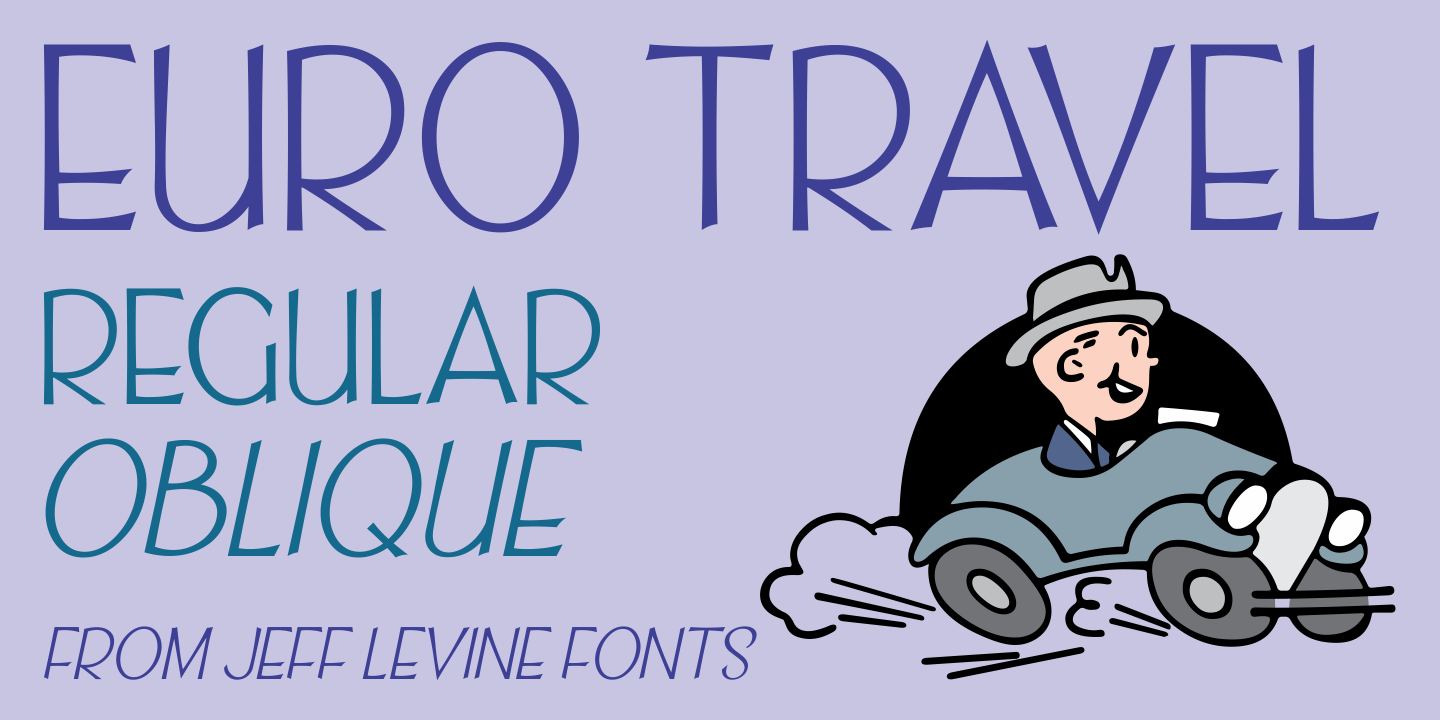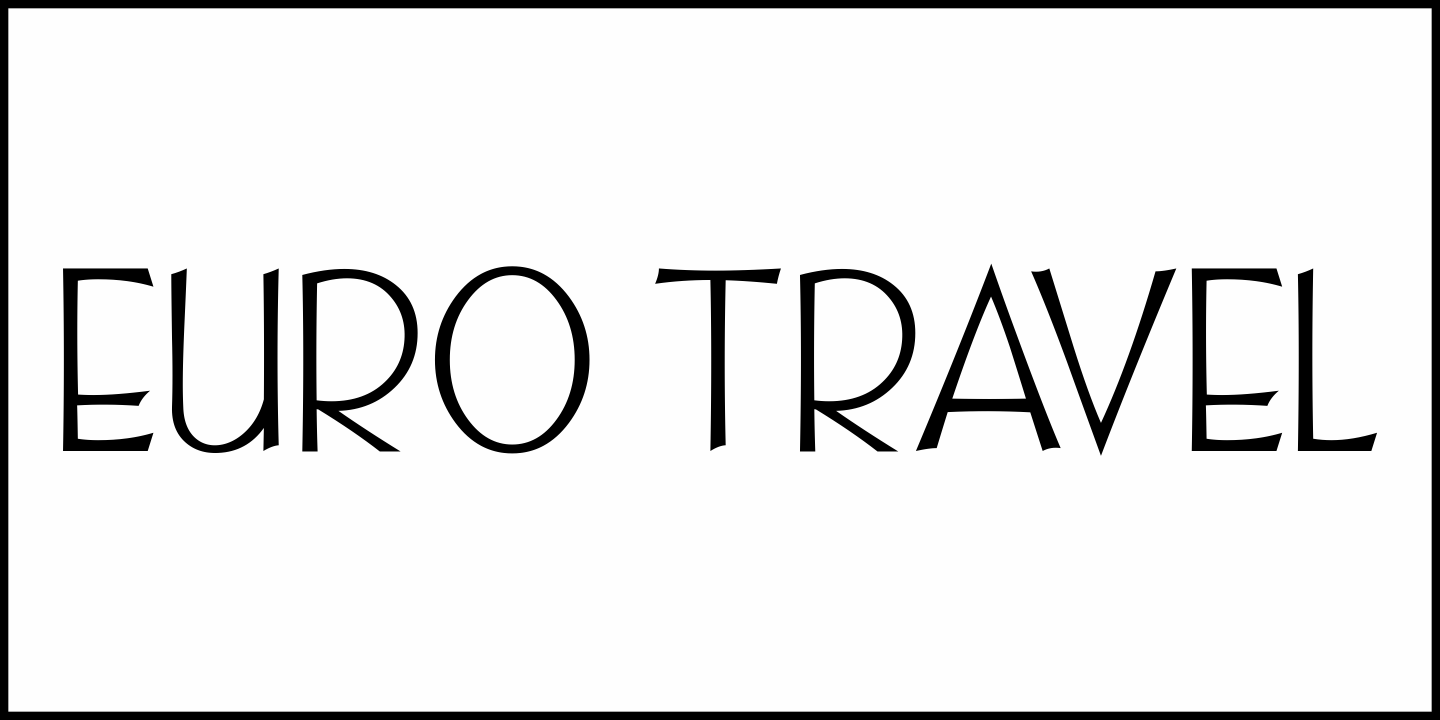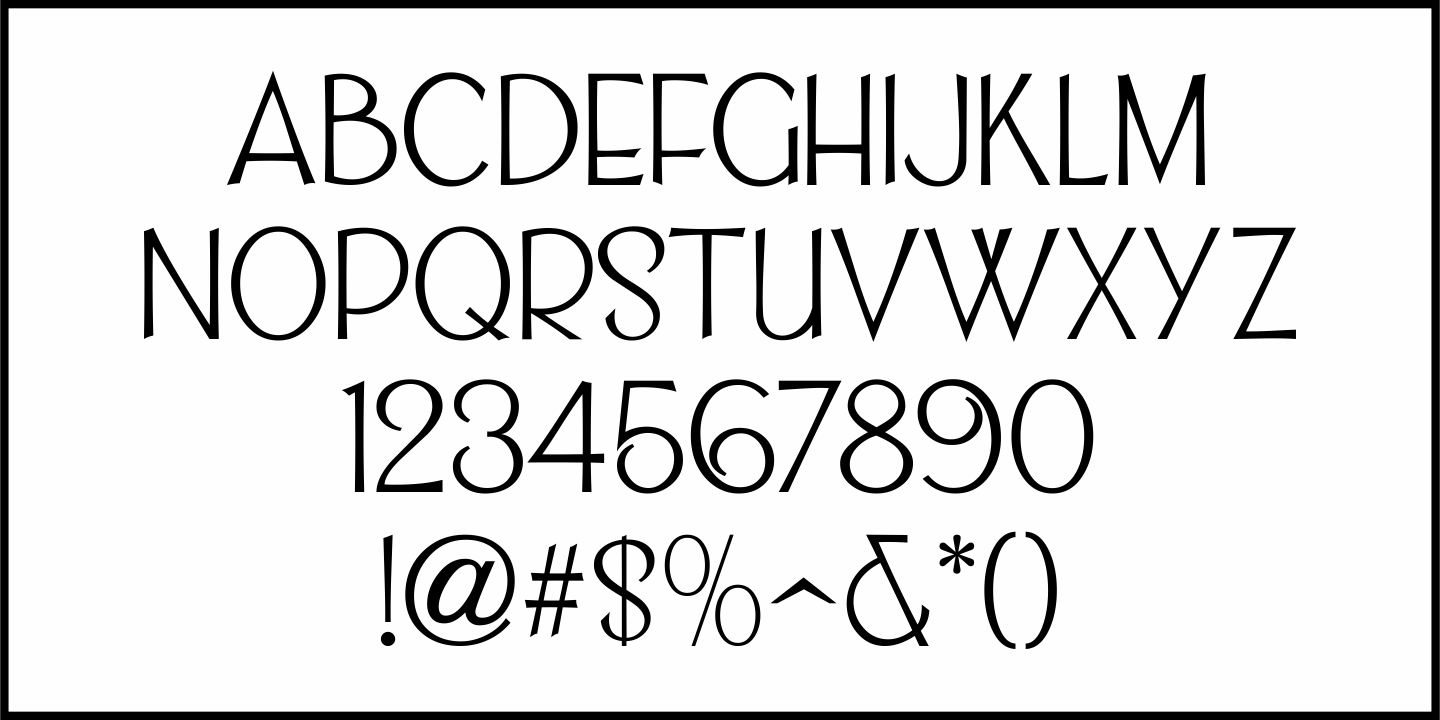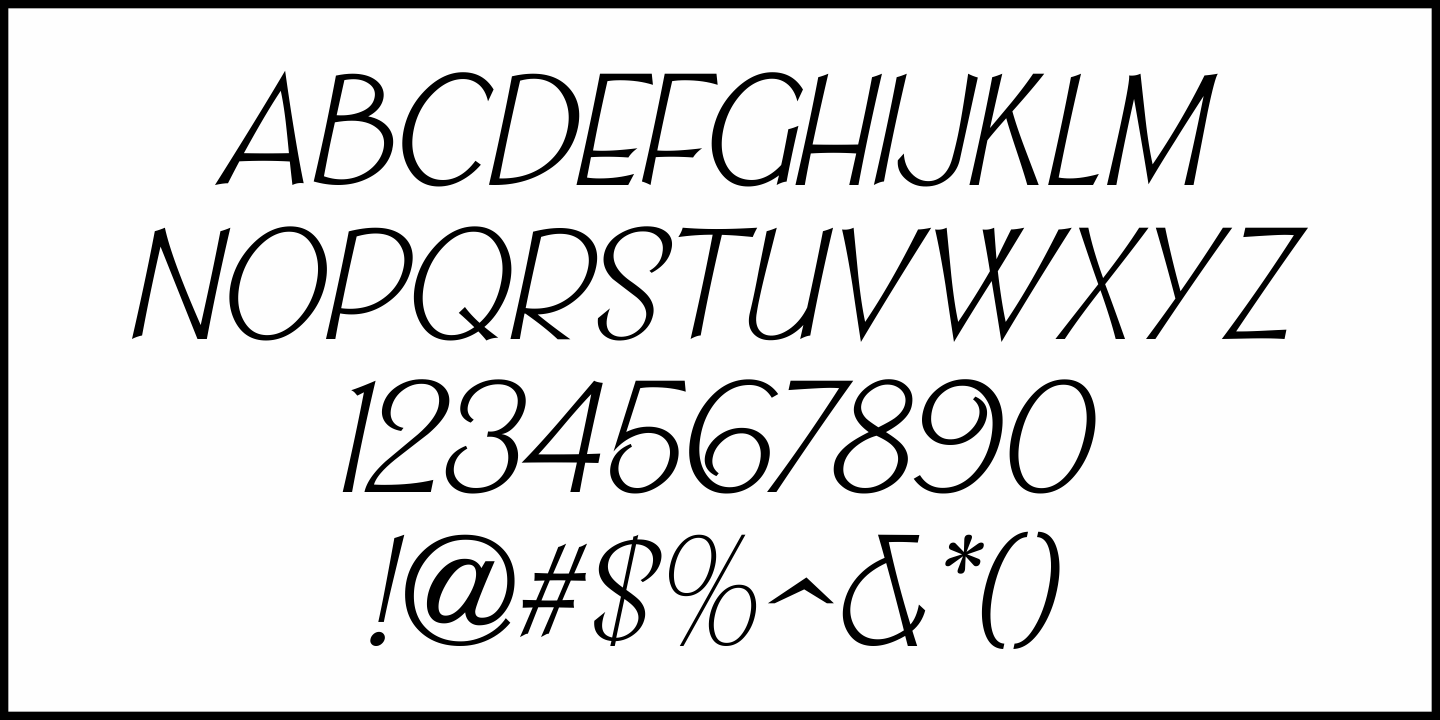
Euro Travel
A German travel poster from 1927 became the design inspiration for a type revival because of its pleasantly hand lettered sans serif type style.
Euro Travel JNL is available in both regular and oblique versions.